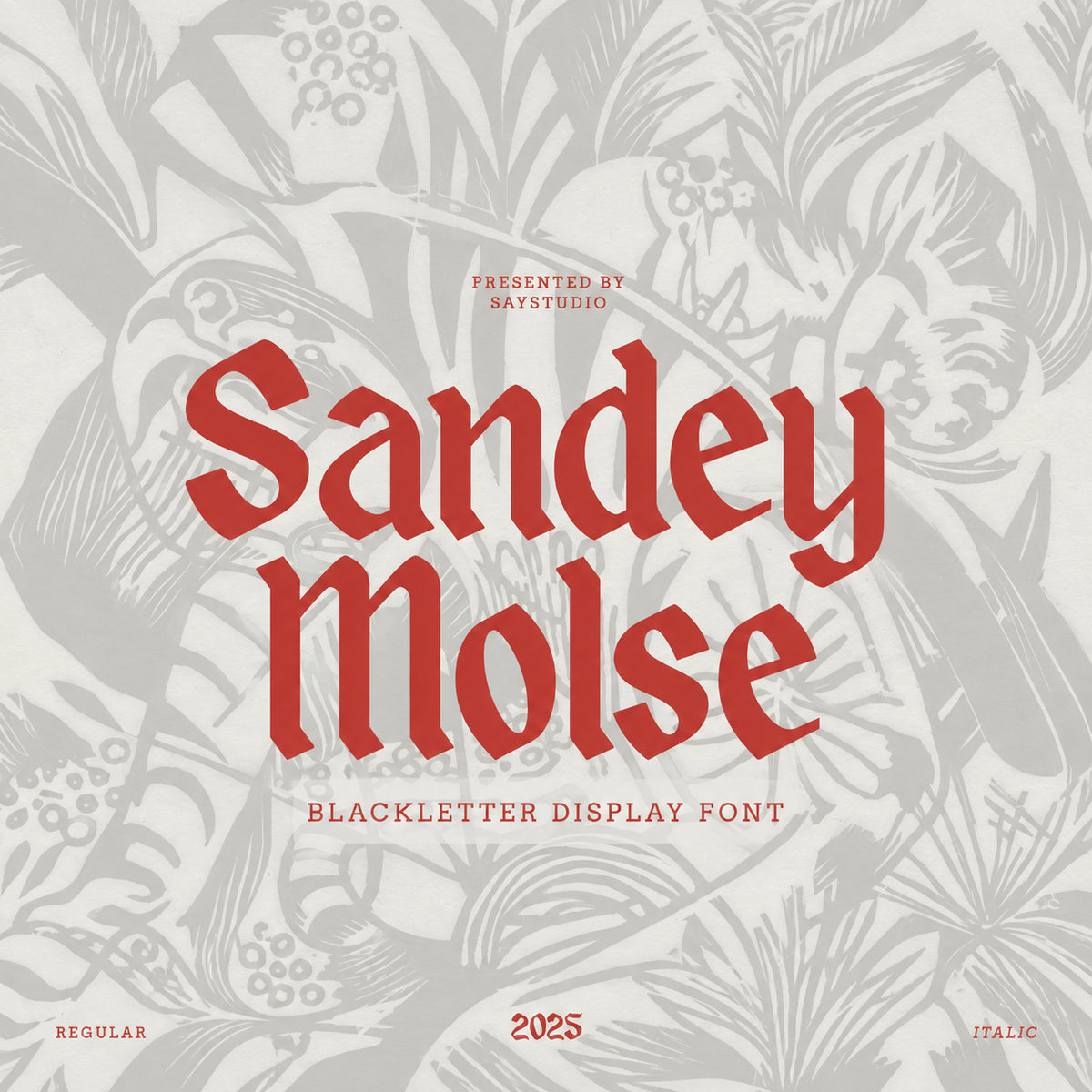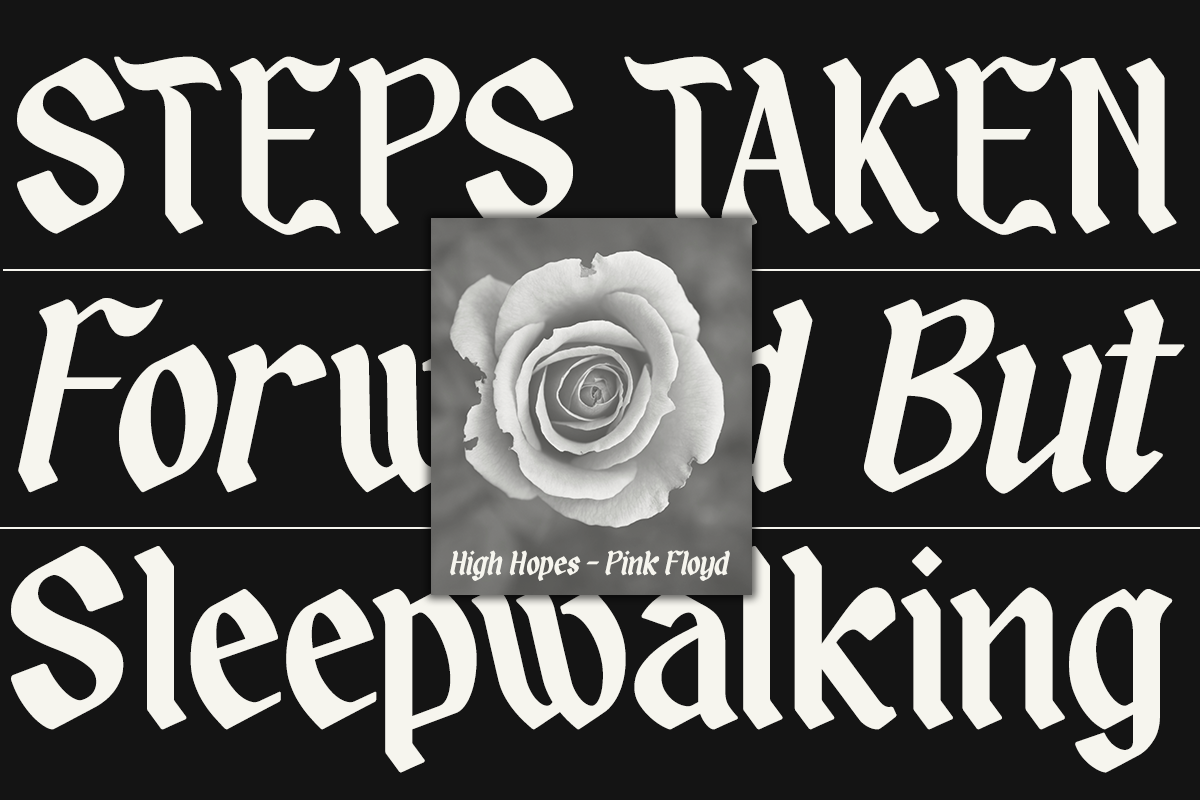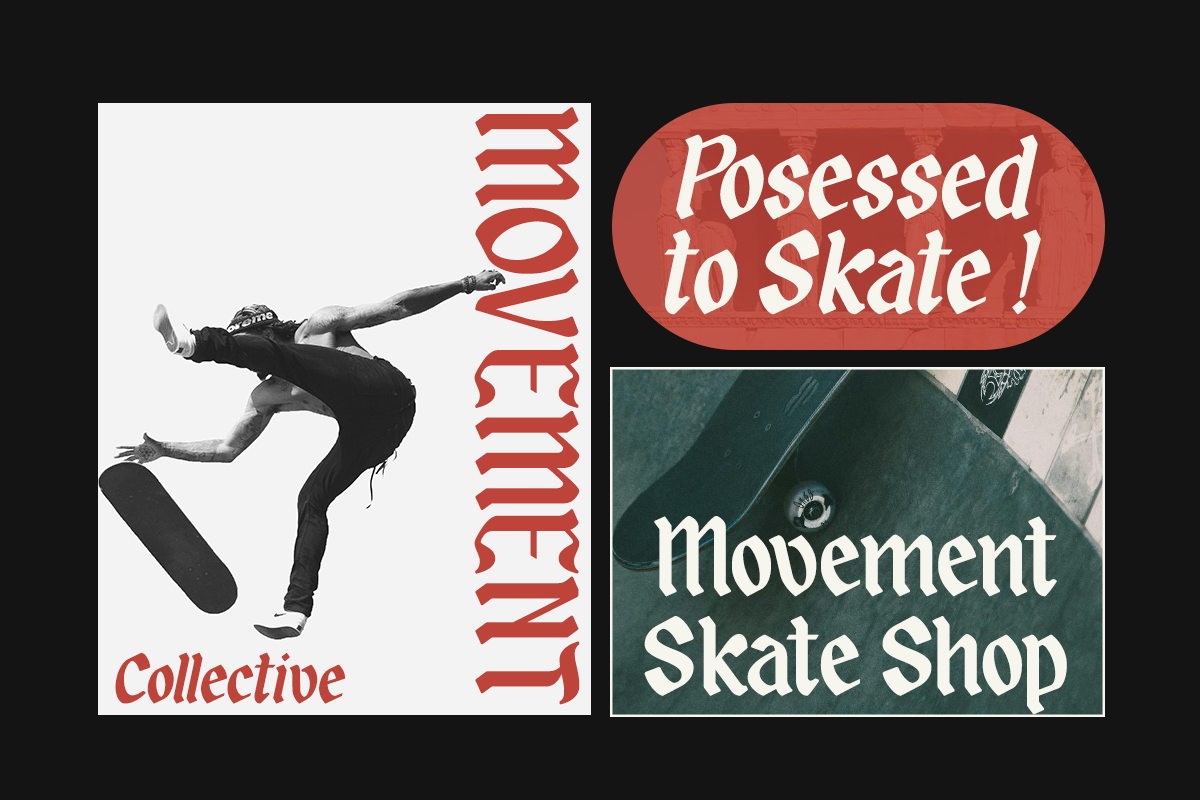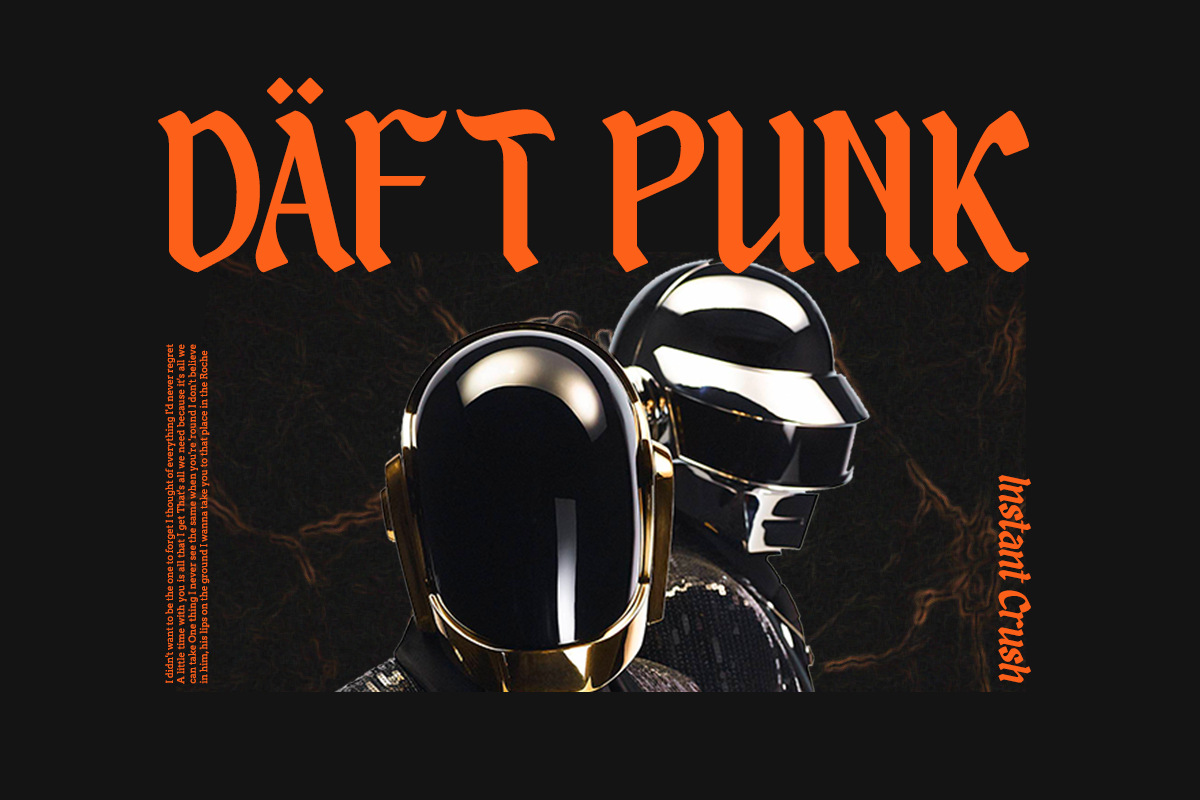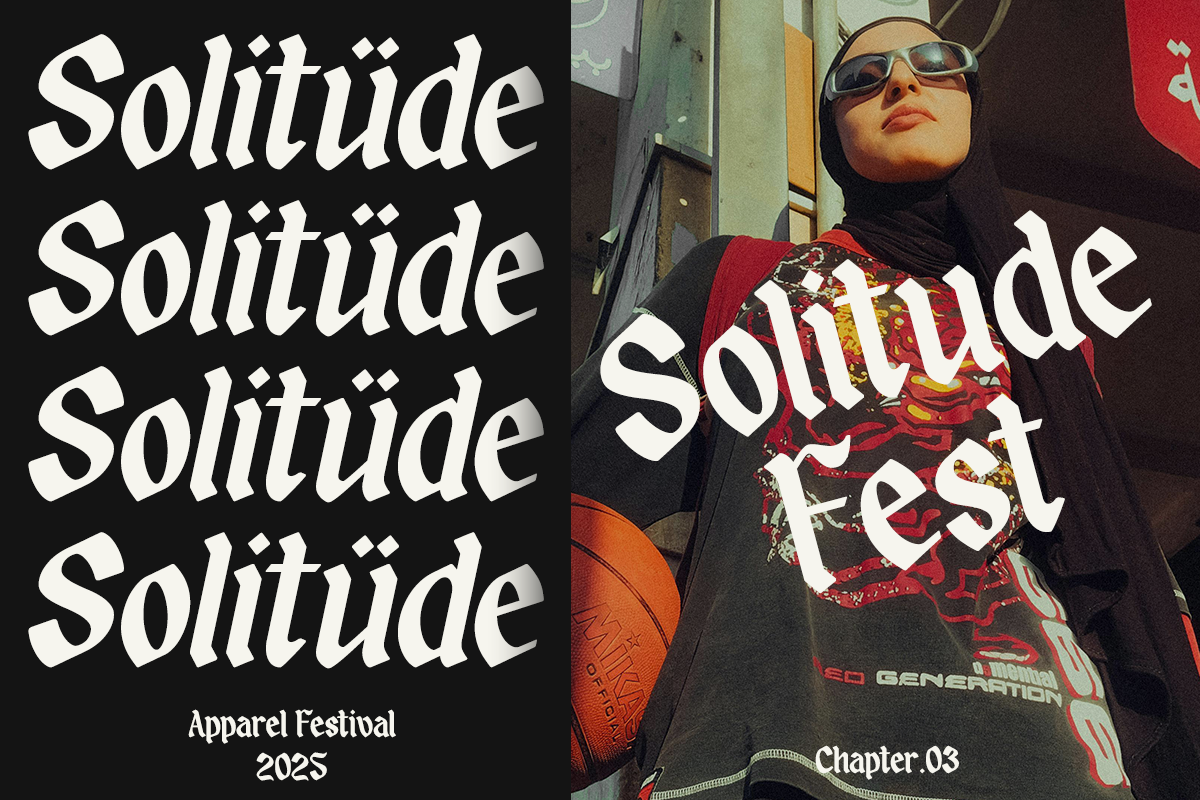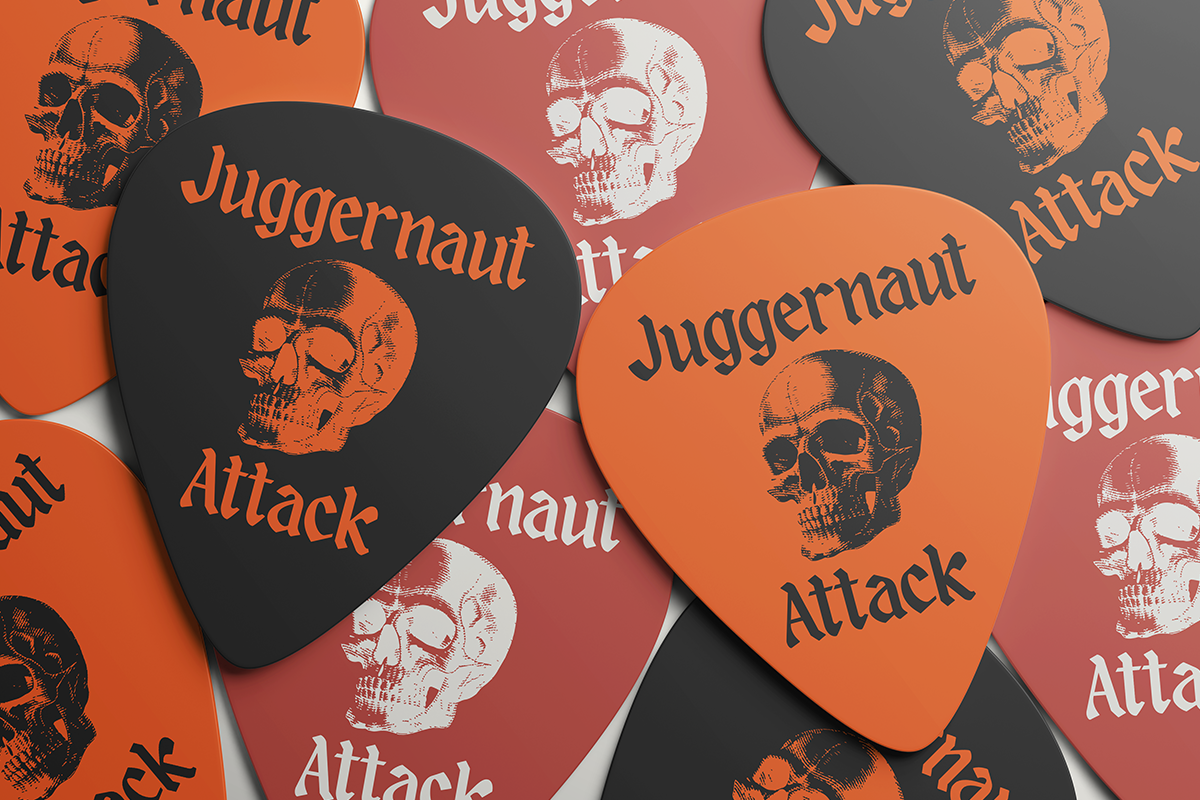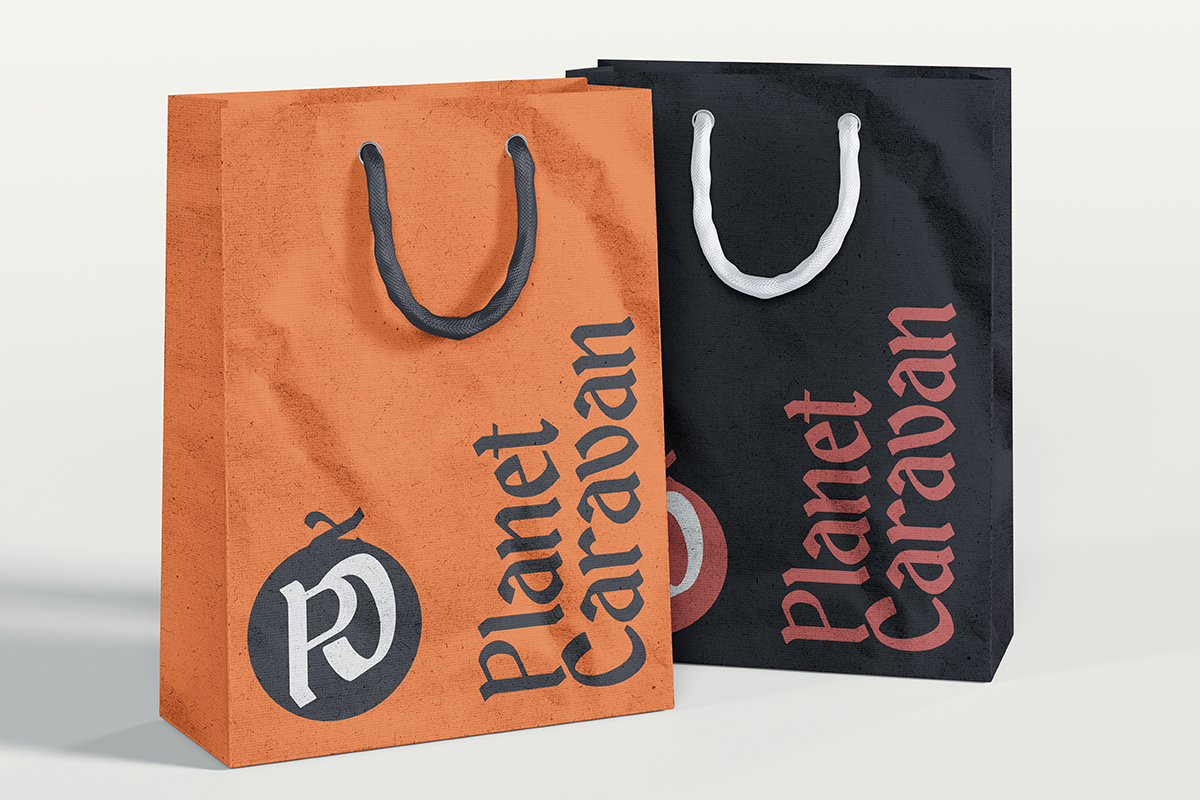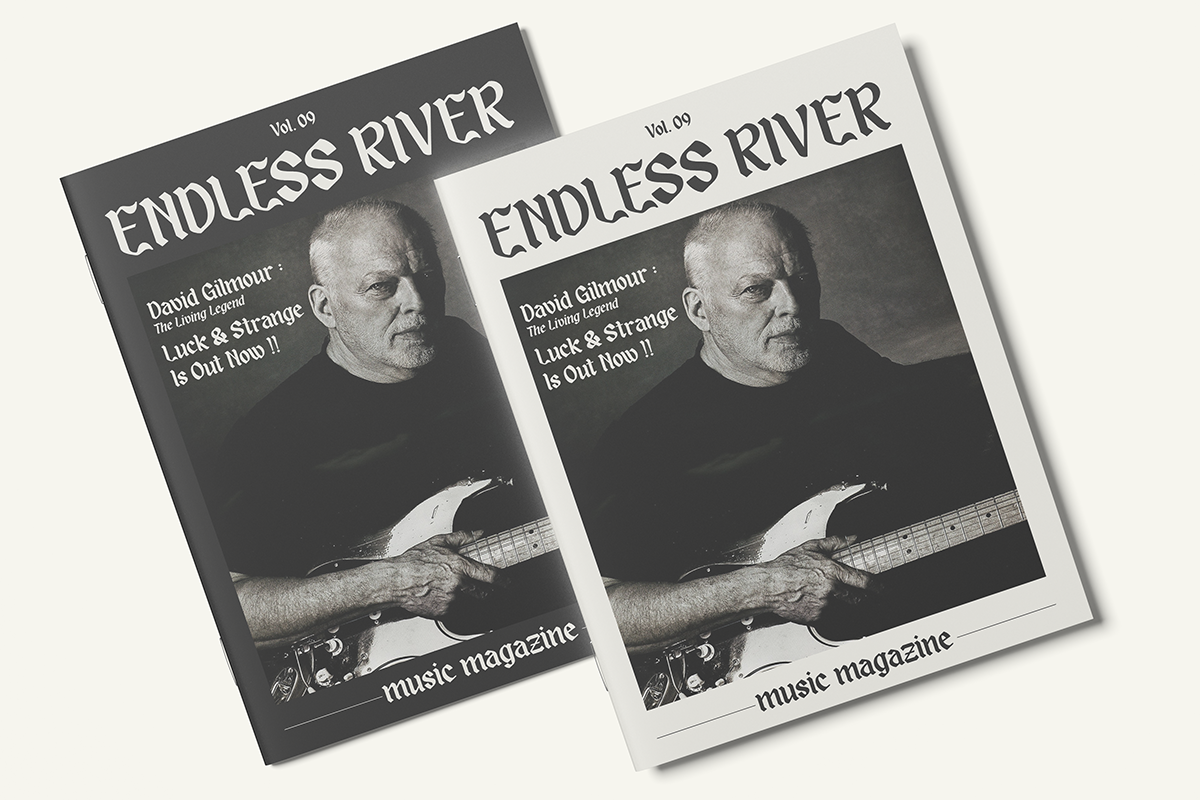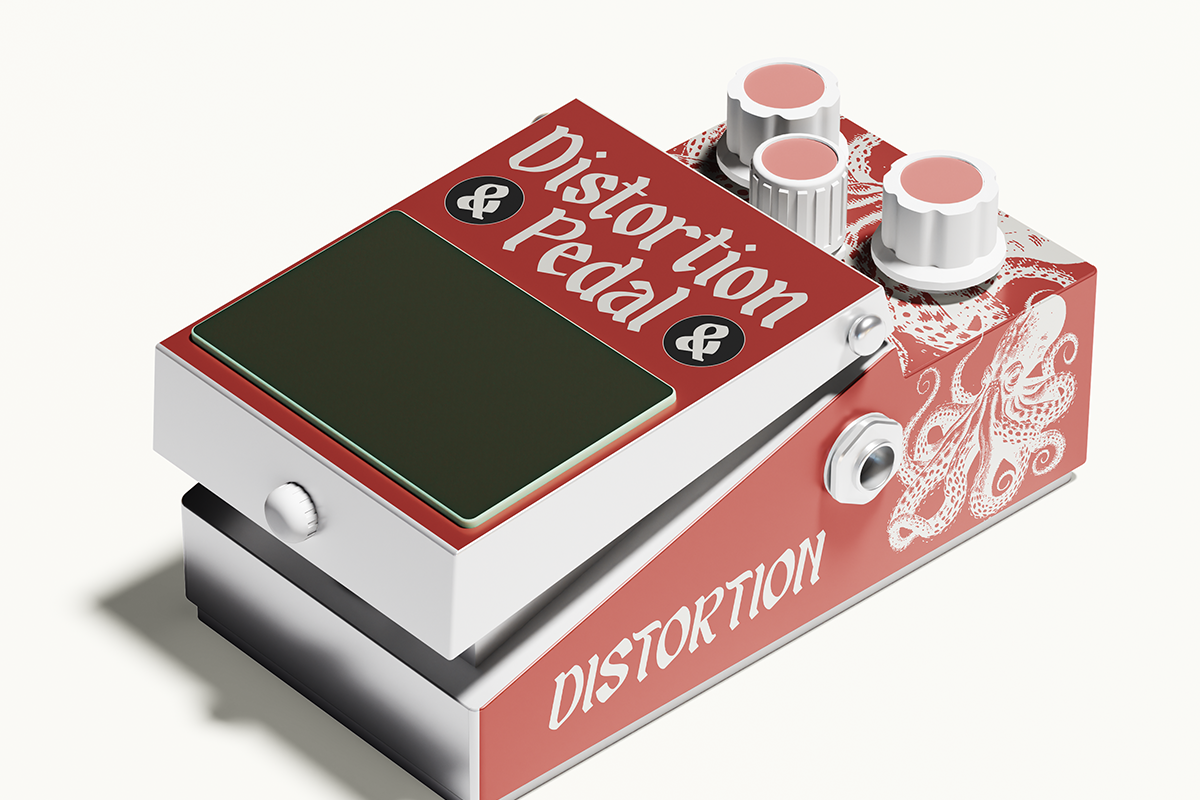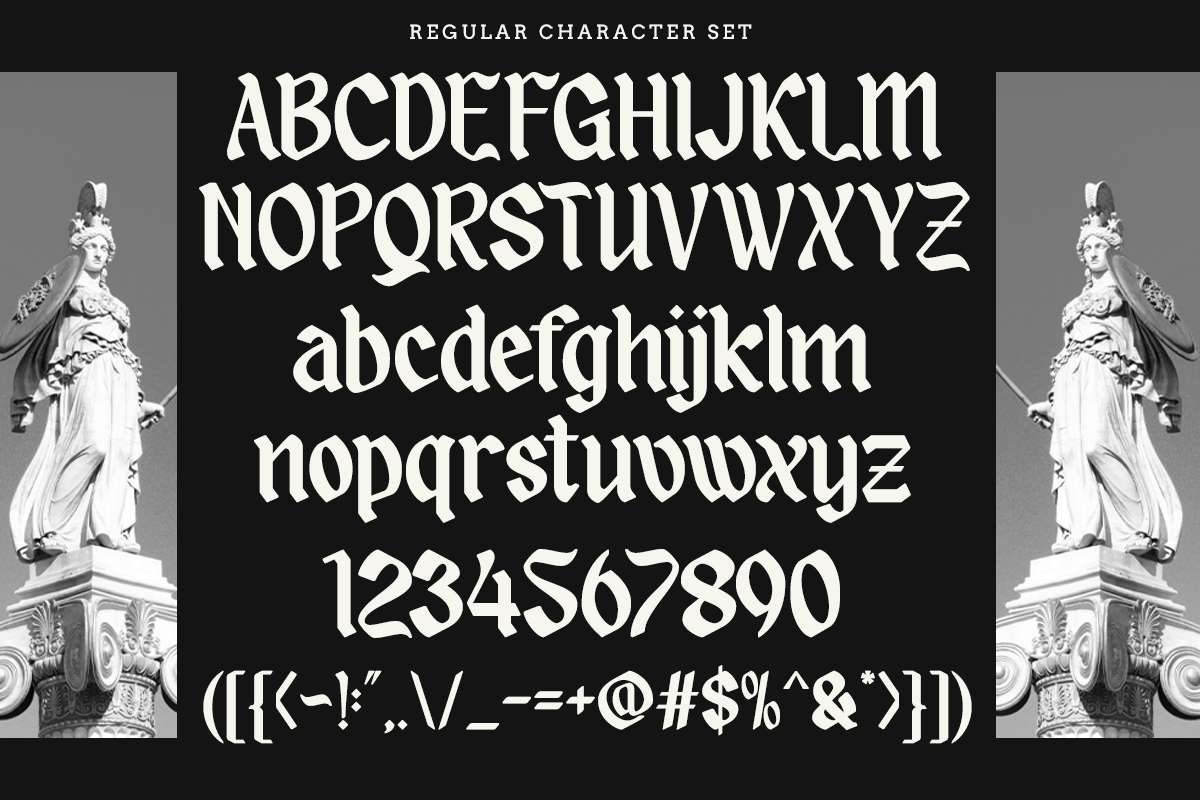
Sandey Molse - Gothic Blackletter Font
Sandey Molse is a Blackletter display typeface. Its distinctive diagonal slice on each glyph seamlessly blends modern sophistication with a touch of rigidity. It is ideal for those seeking a bold and refined look for their projects. On the other hand, Sandey Molse is designed for ease of use, featuring effortlessly legible characters. Perfect for headlines, logos, and branding, it brings a modern and edgy flair to your designs, making them stand out effortlessly.
Sandey Molse is a Blackletter display typeface featuring a diagonal slice on each glyph, with Regular and Italic styles, uppercase and lowercase characters, numbers, symbols, punctuation, and multilingual support. Files are provided in OTF, TTF, and WOFF formats.